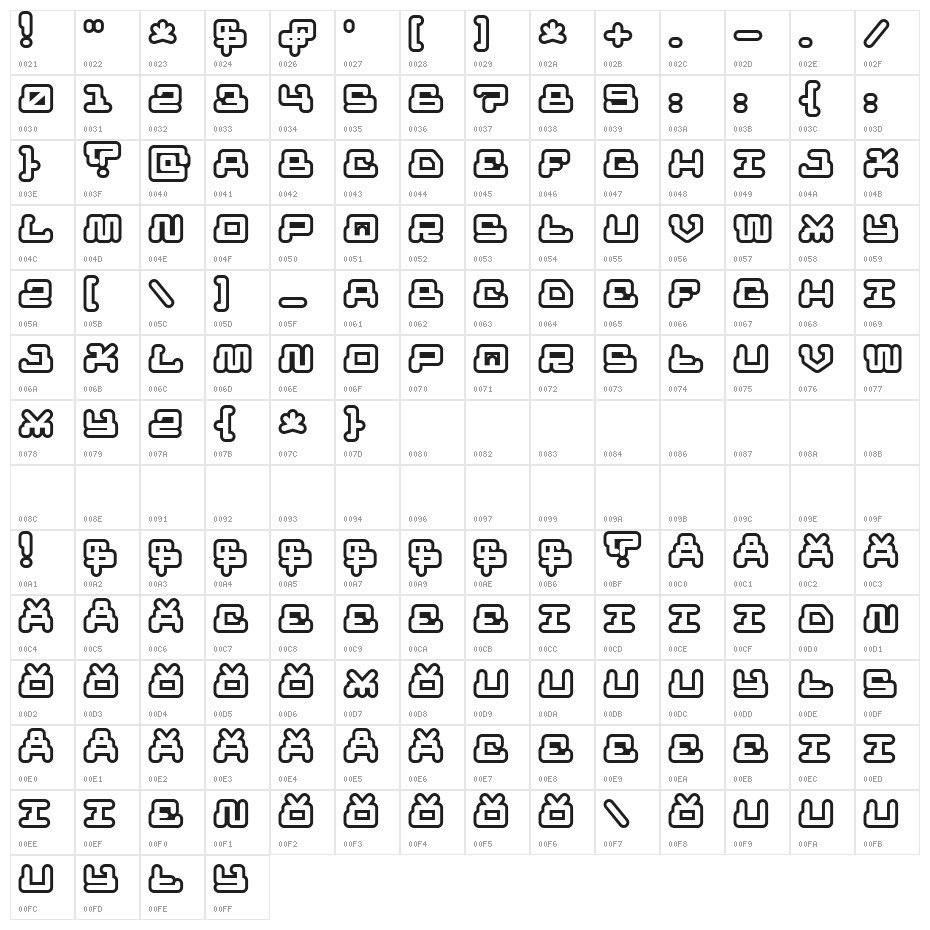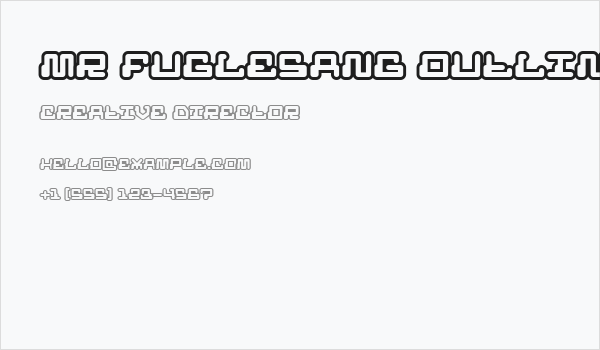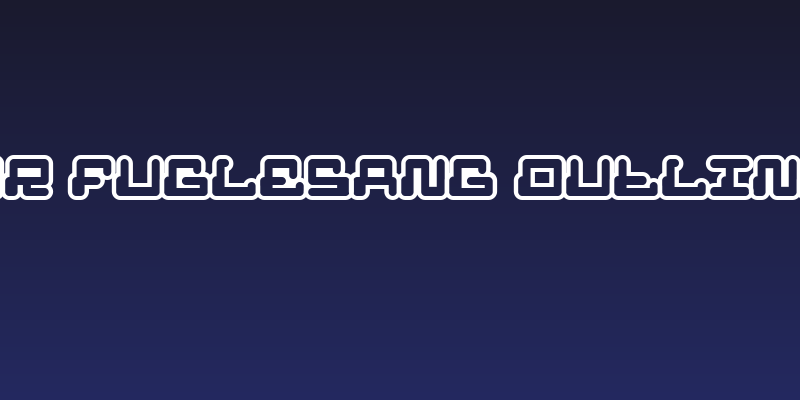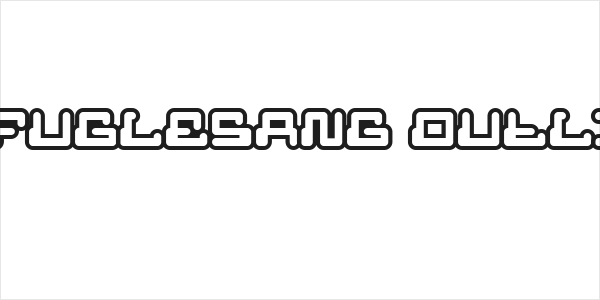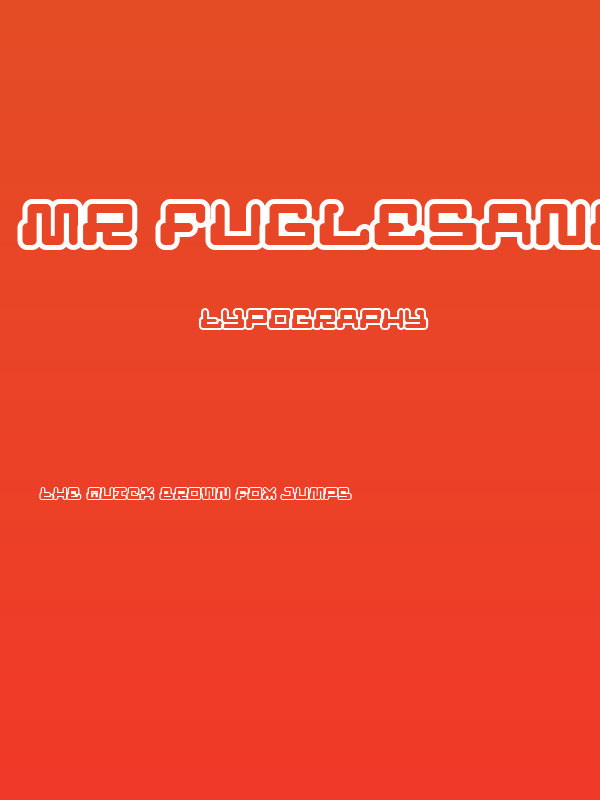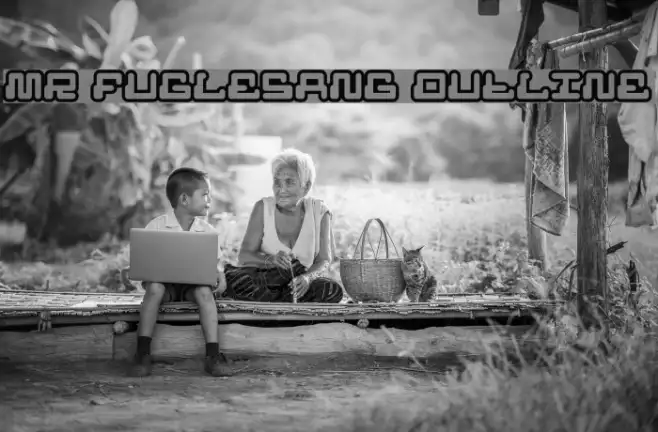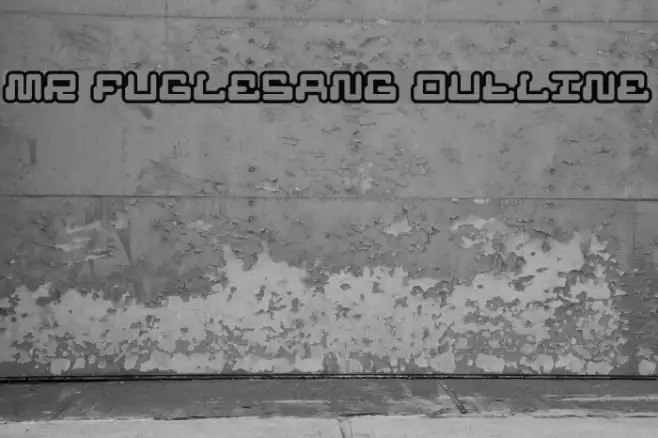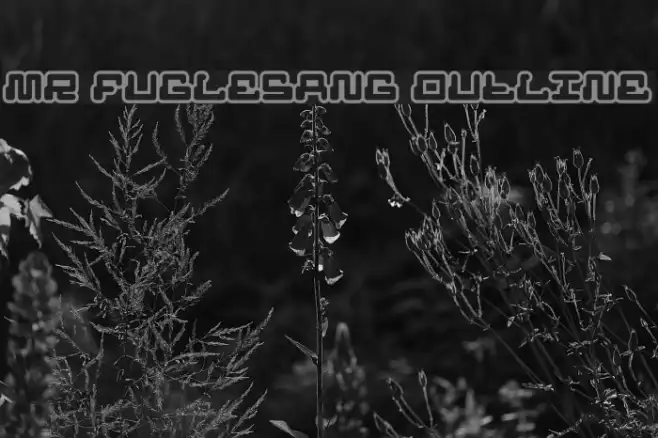
MR FUGLESANG OUTLINE Font
MR FUGLESANG OUTLINE Description
This font features a bold, outlined style with a futuristic and geometric appearance. Each character is designed with a thick outer border and a hollow interior, creating a striking contrast. The letters are uniformly shaped with rounded edges, giving them a smooth and cohesive look. The numbers and special characters follow the same design principles, ensuring consistency throughout the typeface. This font's unique style makes it stand out, making it ideal for eye-catching designs.
| Proposed Projects | Ideal for digital artwork, posters, video game graphics, and branding that requires a modern and bold aesthetic. |